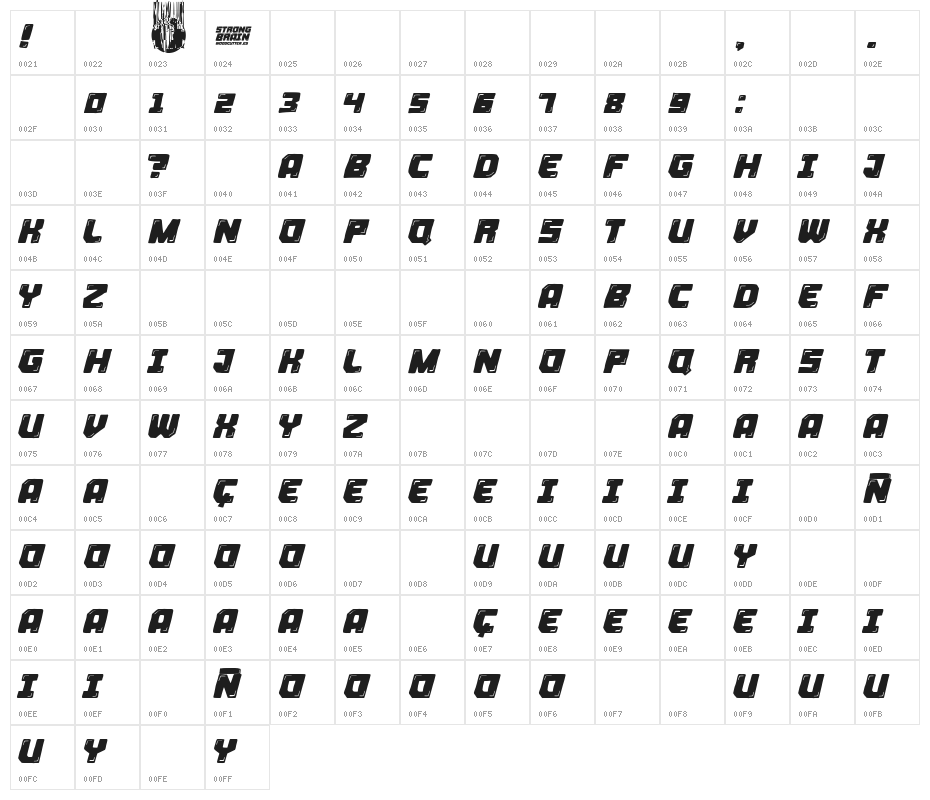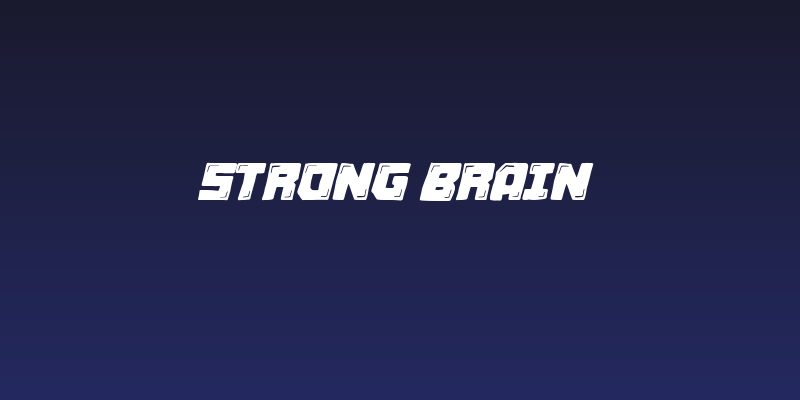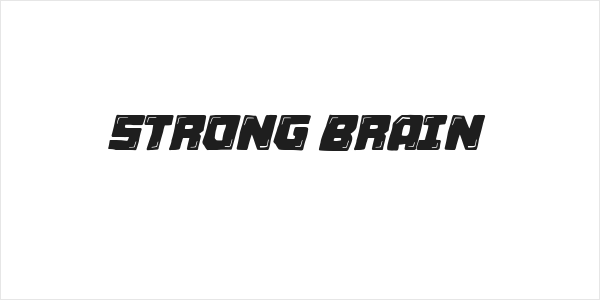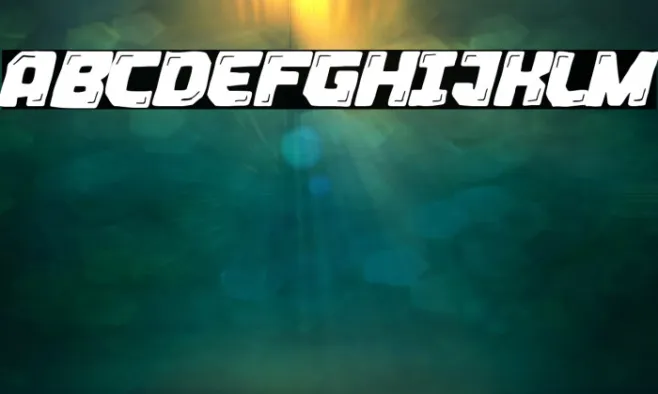
Strong Brain Font
Strong Brain Description
This font exhibits a bold and dynamic style with a strong, impactful presence. The characters are designed with a thick, angular structure, giving them a robust and powerful appearance. The edges are sharp and geometric, adding to the font's aggressive and modern aesthetic. The uppercase and lowercase letters maintain a consistent design, with the lowercase slightly smaller but equally bold. Numbers and special characters follow the same design principles, ensuring uniformity across all glyphs. The font's design is ideal for making a statement, with its boldness and unique style capturing attention effectively.
| Proposed Projects | Ideal for sports branding, action movie posters, video game titles, and dynamic logo designs. |